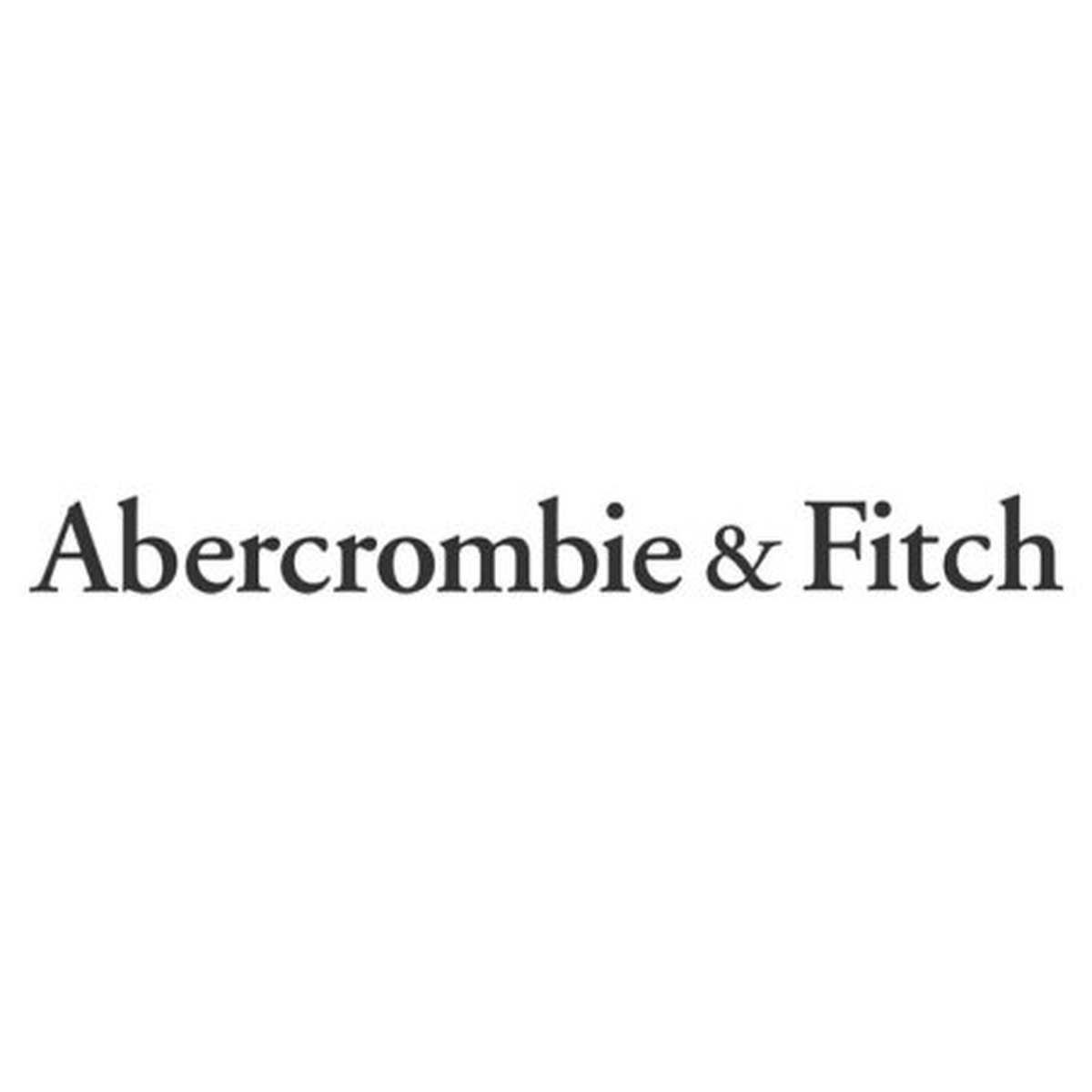
About Abercrombie & Fitch
Abercrombie & Fitch is the American lifestyle-apparel retailer founded in 1892, known through the 1990s and 2000s for its preppy, all-American casual wear and heavily styled store branding. The A&F wordmark uses a classical old-style serif in a confident bold weight, lending the brand a heritage, collegiate feel that anchors its logo, storefronts, and packaging.
Across decades of repositioning, from outdoor outfitter to teen-fashion powerhouse to its more recent grown-up rebrand, Abercrombie has kept the serif wordmark at the centre of its identity. The traditional bracketed serifs and strong thick-to-thin contrast signal old-money Americana and quiet establishment, a deliberate counterpoint to the louder logos of fast-fashion competitors. That bold old-style serif look is what this font recreates.
What font does Abercrombie & Fitch use?
Abercrombie & Fitch uses Adobe Garamond Bold, designed by Robert Slimbach for Adobe (1989) and based on the 16th-century types of Claude Garamond, the classical serif behind the Abercrombie & Fitch wordmark. A commercial Adobe Originals release.
Where this style works
Bold old-style serifs in the Garamond tradition are the go-to for heritage and luxury branding, fashion and apparel wordmarks, book covers, editorial headlines, university and institutional identities, and packaging that wants to feel established and timeless. The bracketed serifs and pronounced stroke contrast give headlines authority, while the classical proportions read as refined rather than trendy.
What fonts are similar to Adobe Garamond?
Other old-style serifs in the same lineage include Garamond Premier Pro, Sabon, Adobe Caslon, Stempel Garamond, and ITC Garamond. Free near-substitutes via Google Fonts include EB Garamond and Cormorant Garamond.
Abercrombie & Fitch Font: Codex Tale